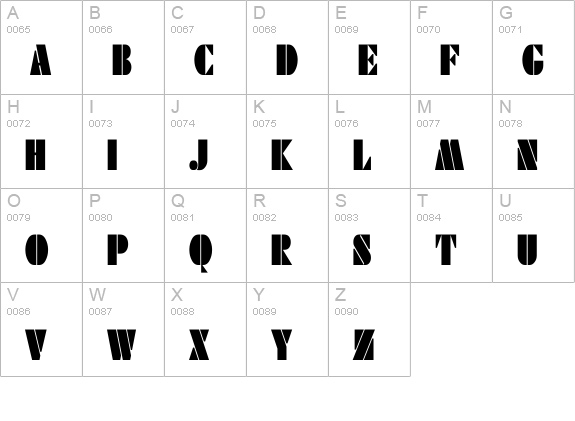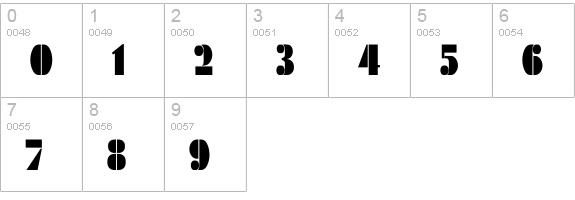
Rodchenko Cn Bold Font Details
Rodchenko Cn Bold is a strong, high-contrast variant in the Rodchenko typeface family \xE2\x80\x94 well suited to headlines, attention-grabbing titles, and strong calls-to-action.
Rodchenko Cn Bold font is a modern and versatile typeface that exudes strength and confidence. Its bold and sharp design makes it ideal for headlines, posters, and branding projects that require a bold statement. The geometric shapes and clean lines give this font a contemporary and stylish look that is sure to make your designs stand out. What's even better is that Rodchenko Cn Bold font is available for free download at FontsMarket.com. This means you can easily access and use this eye-catching font in your projects without any cost. So why wait? Download Rodchenko Cn Bold font today and add a touch of boldness to your designs!